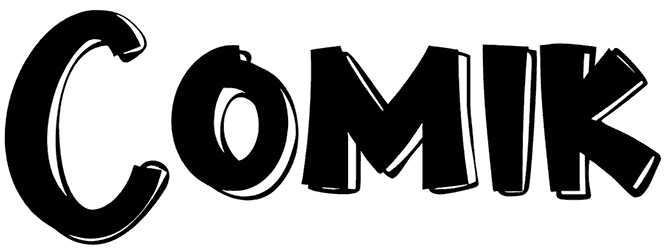
Comik Font
If you need a comical and funny face for an interesting layout, don’t miss this offer. As a cartoon font with playful letters, Comik would be a striking style for your novel designs, such as posters, game screens, comics, and whatnot. This comic font doesn’t support lowercase letters, numbers, or punctuation marks, but including two sets of caps in three versions will cover this lack.